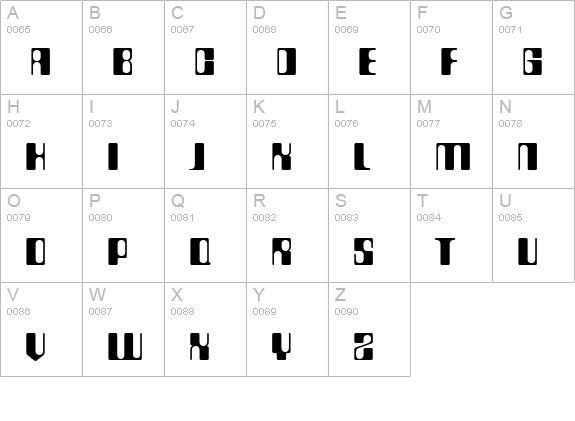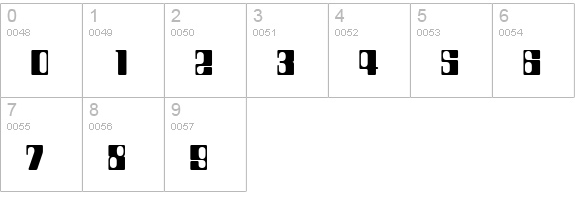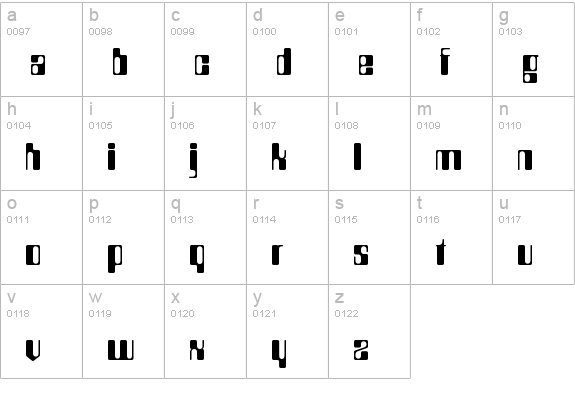
CountdownD Font Details
CountdownD font is a modern and stylish typeface that exudes a sense of sophistication and elegance. With its clean lines and geometric shapes, CountdownD font is perfect for a wide range of design projects, from branding to editorial design. This versatile font is easy to read and will add a touch of contemporary flair to any project. What's even better is that CountdownD font is available for free download at FontsMarket.com! You can easily access this stunning font and incorporate it into your designs without any cost. Don't miss out on this incredible opportunity to enhance your projects with the sleek and professional look of CountdownD font. Download it now and elevate your designs to the next level!